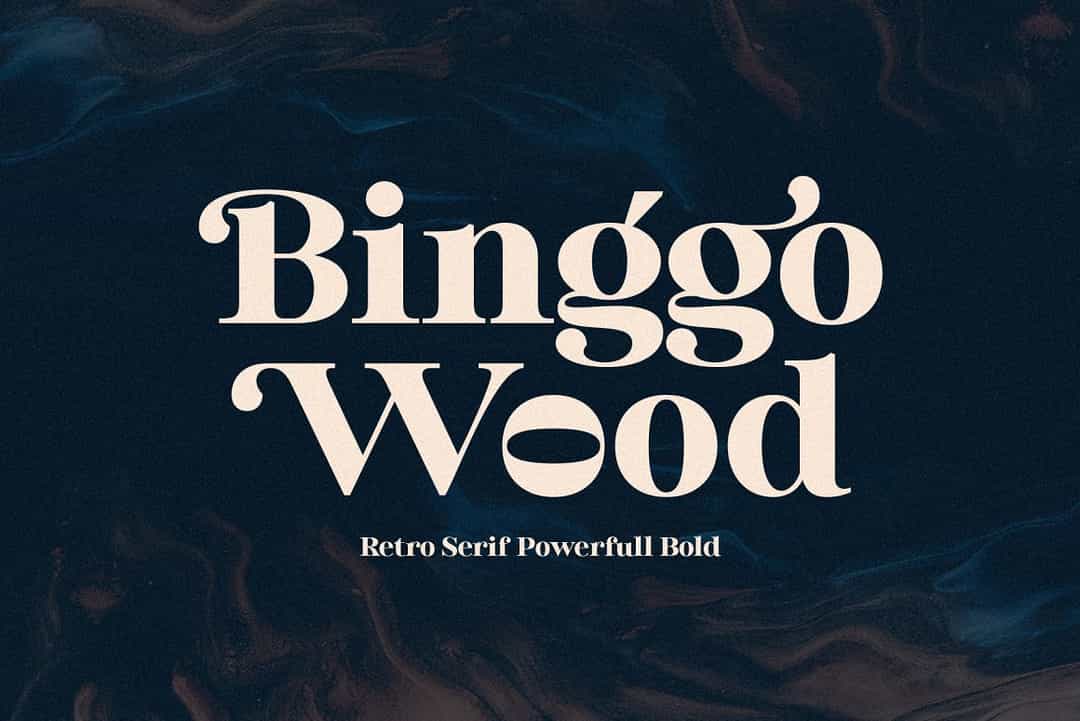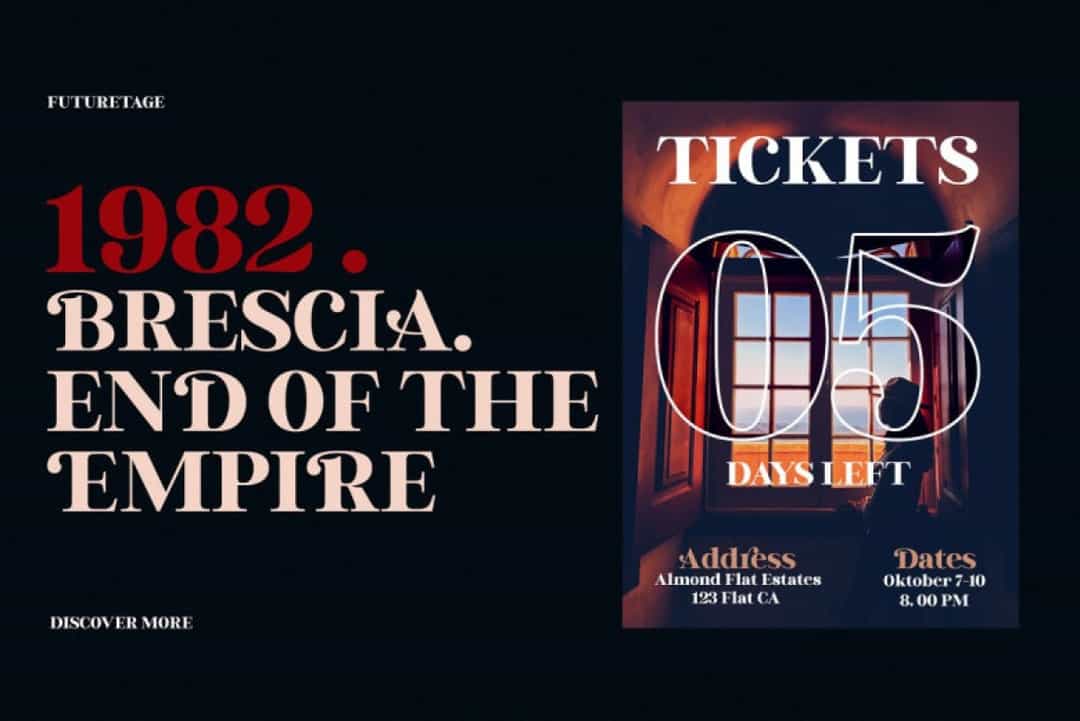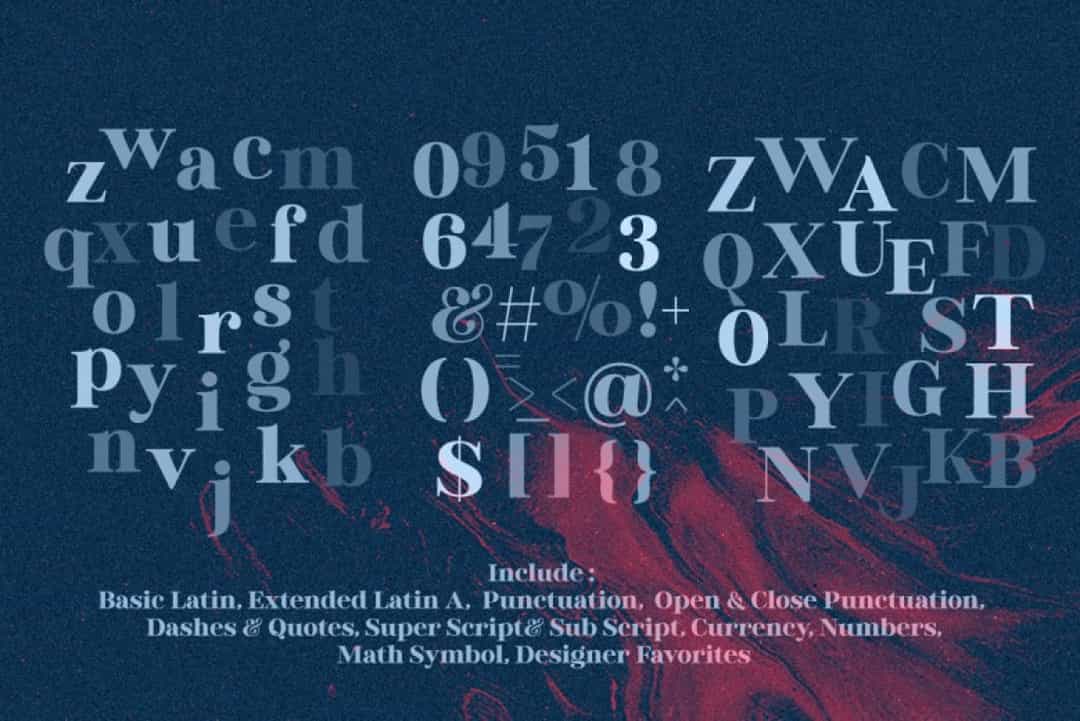
Binggo Wood Serif Font is one of my newest releases, lovingly drawn by hand with precision. Bingo Wood has the ideal balance between subtlety and simplicity – perfect for invitations, logos and home decor projects that call for variety! I recommend it highly.